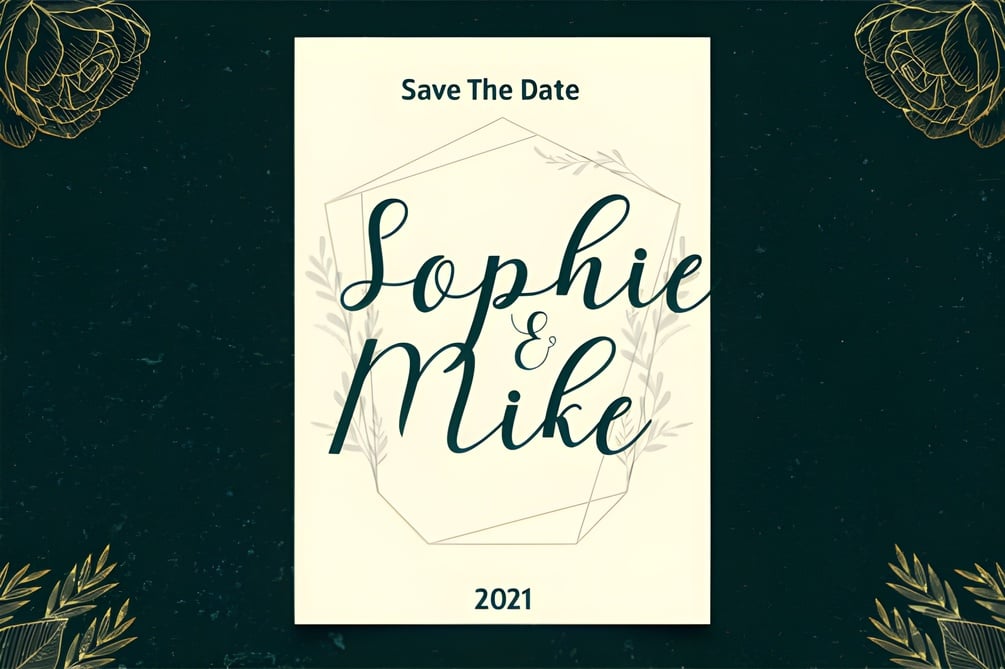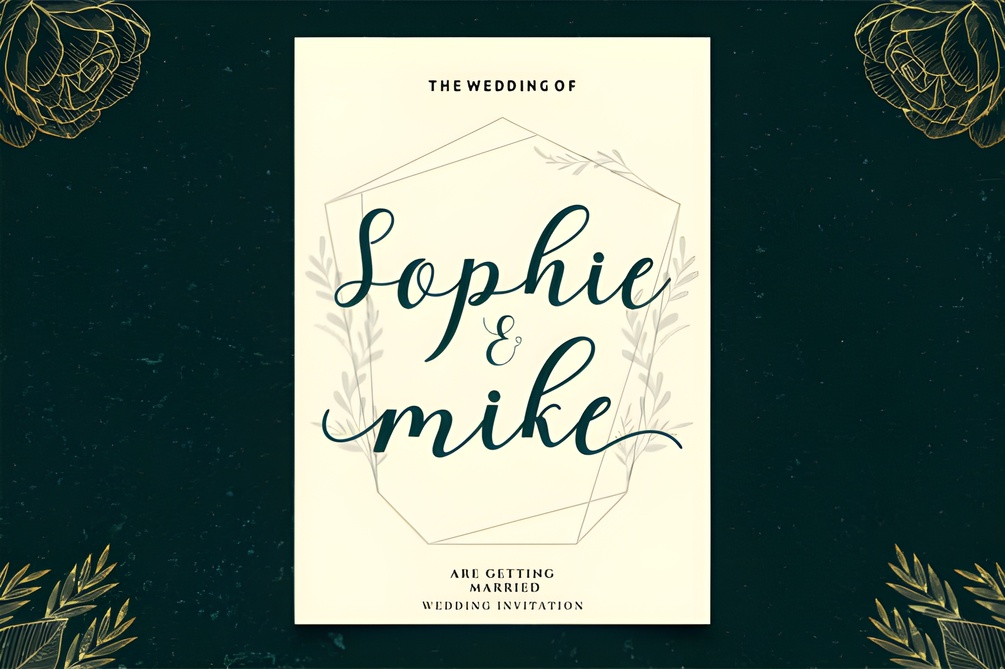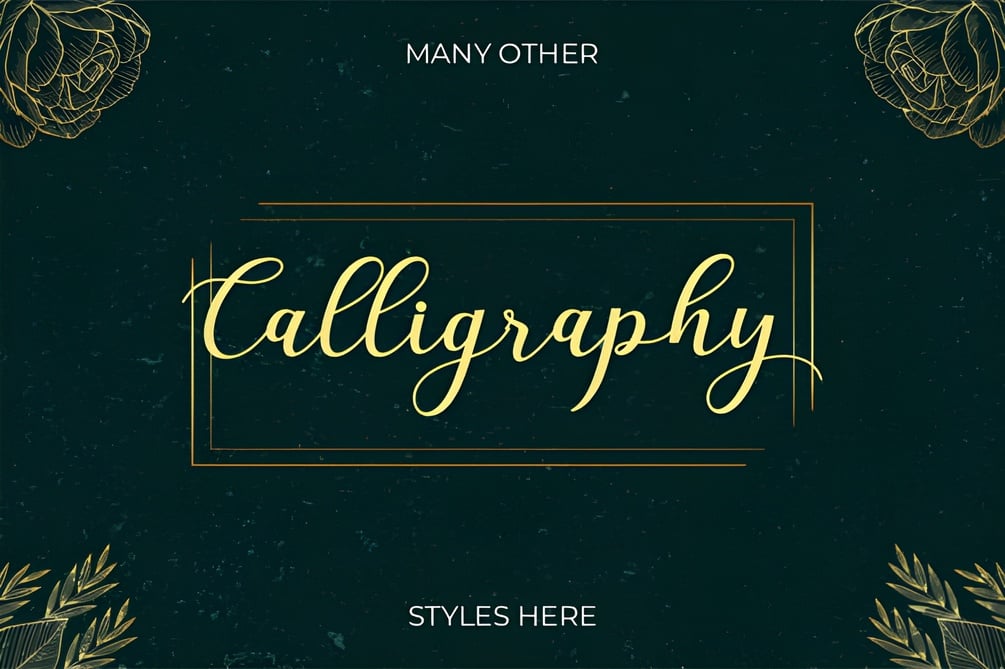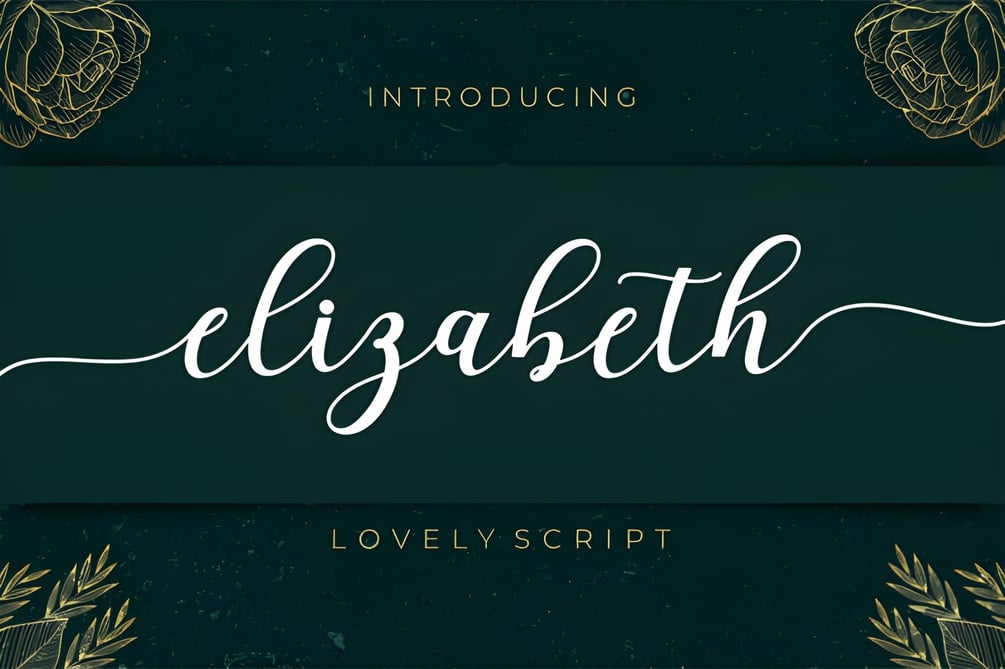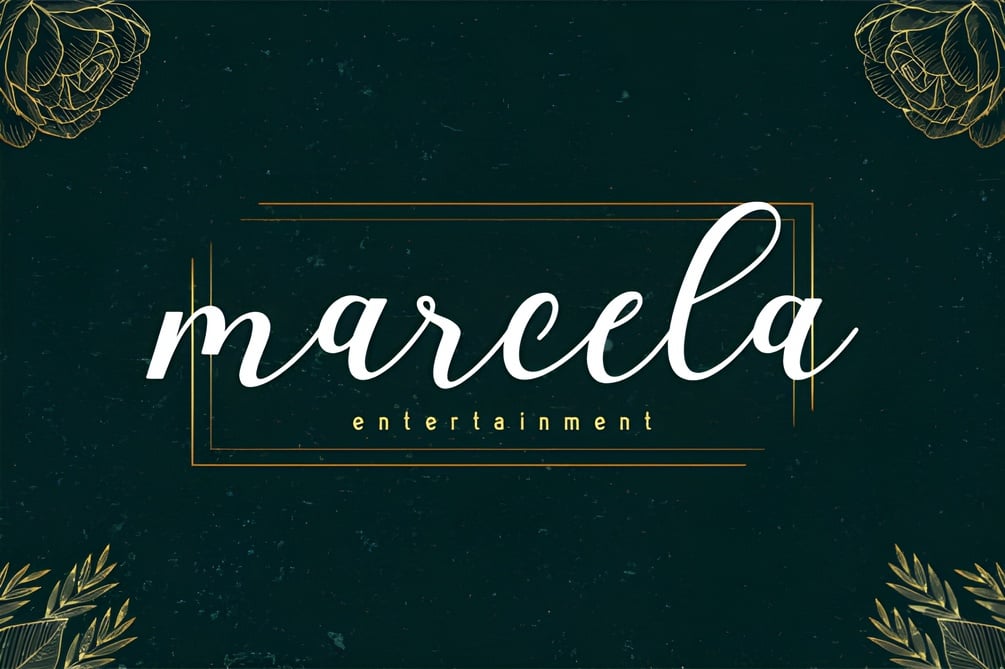
Elizabeth Font
Discover "Elizabeth," an elegant script font designed to enchant and elevate your designs.
With its unique and timeless style, "Elizabeth" adds a touch of sophistication to any project.
This font is PUA encoded, granting you effortless access to all its beautiful glyphs and swashes, allowing for endless creative possibilities.
Whether you're crafting wedding invitations, branding materials, or social media graphics, "Elizabeth" will infuse your creations with a spectacular charm. Embrace the elegance of "Elizabeth" and take your designs to new heights!
Meet "Elizabeth," an elegant script font with a timeless style, perfect for sophisticated designs. PUA encoded for easy access to all glyphs and swashes, it enhances wedding invitations, branding, and more. Elevate your creations with the charm of "Elizabeth."